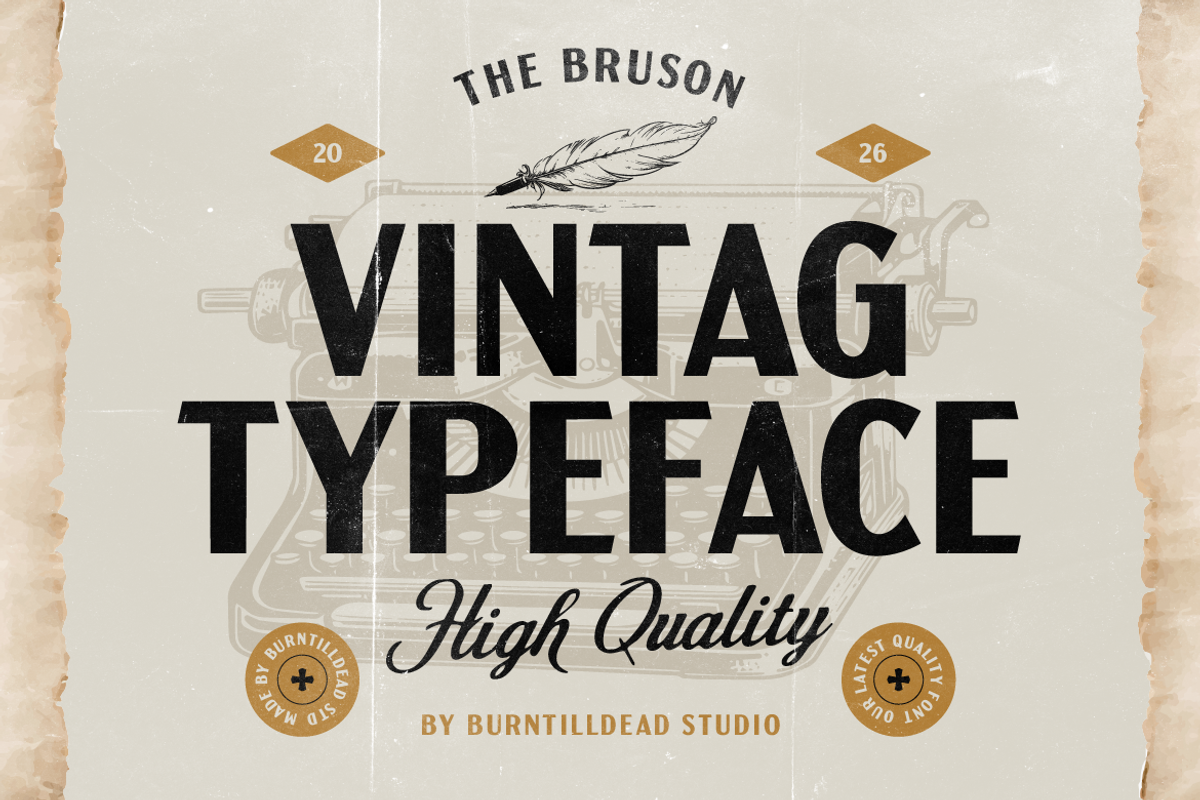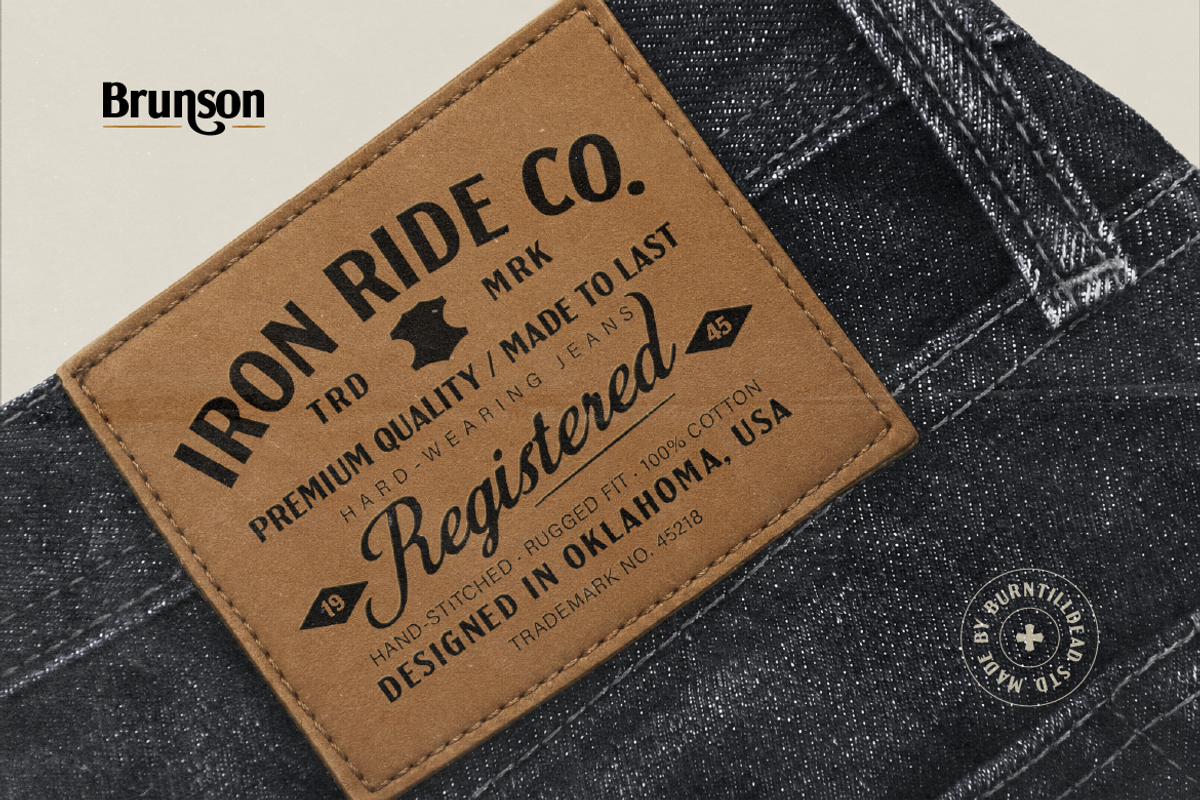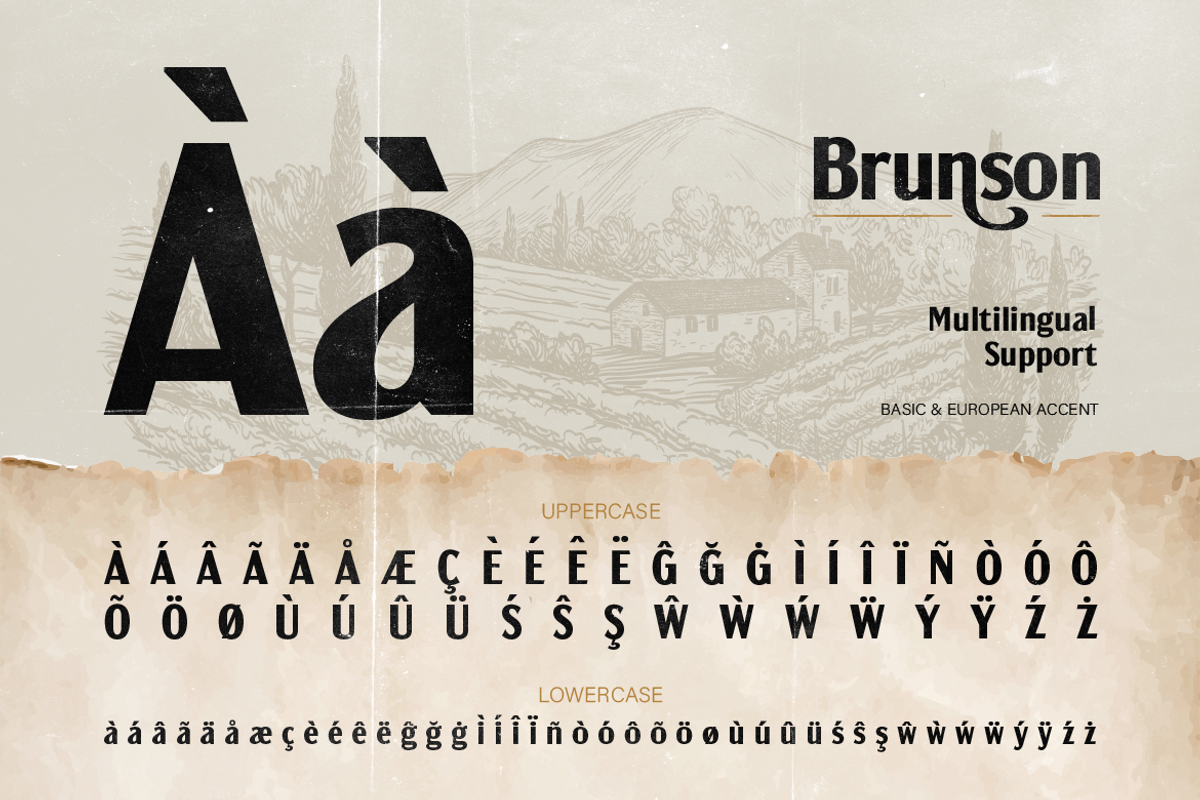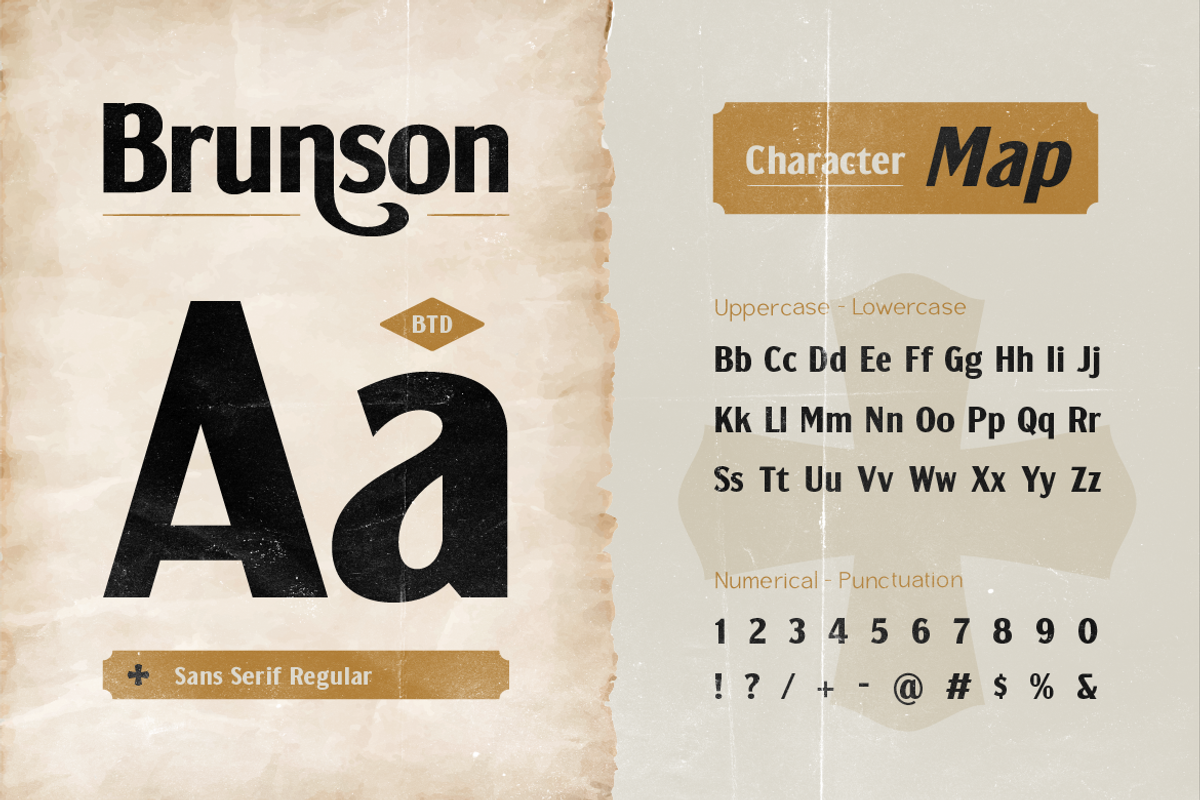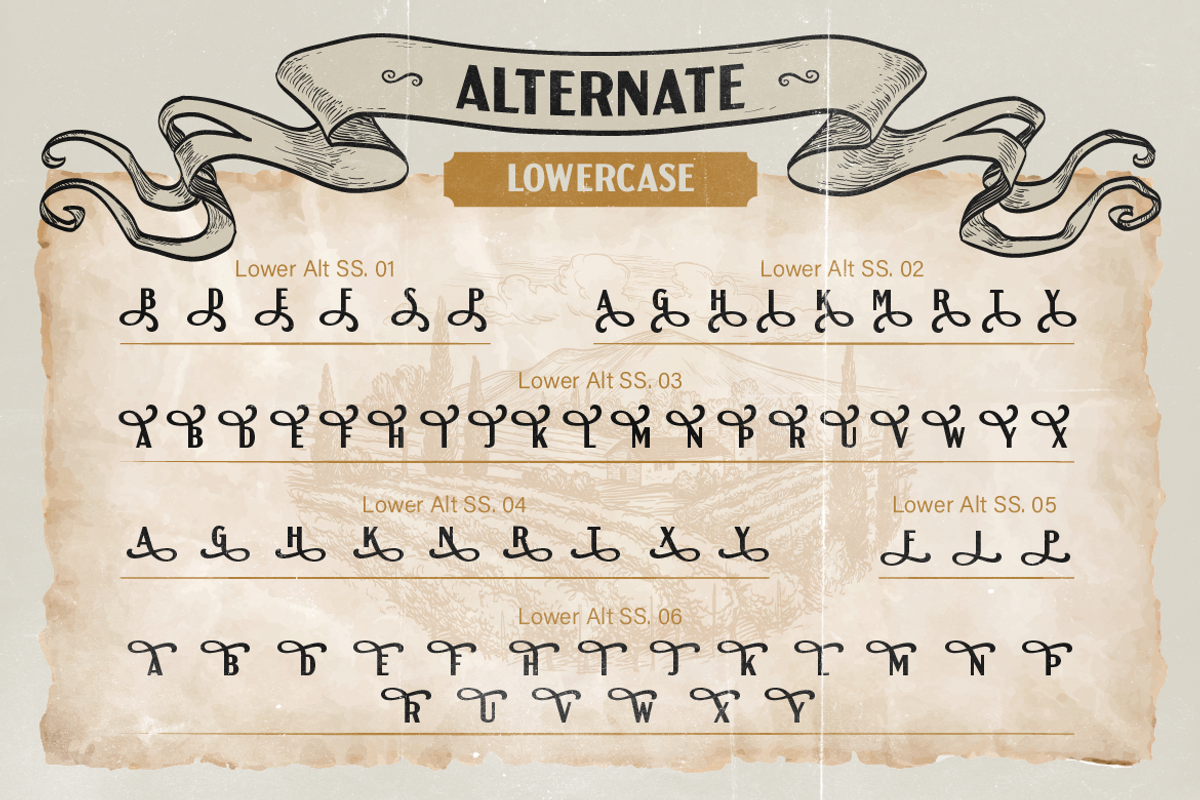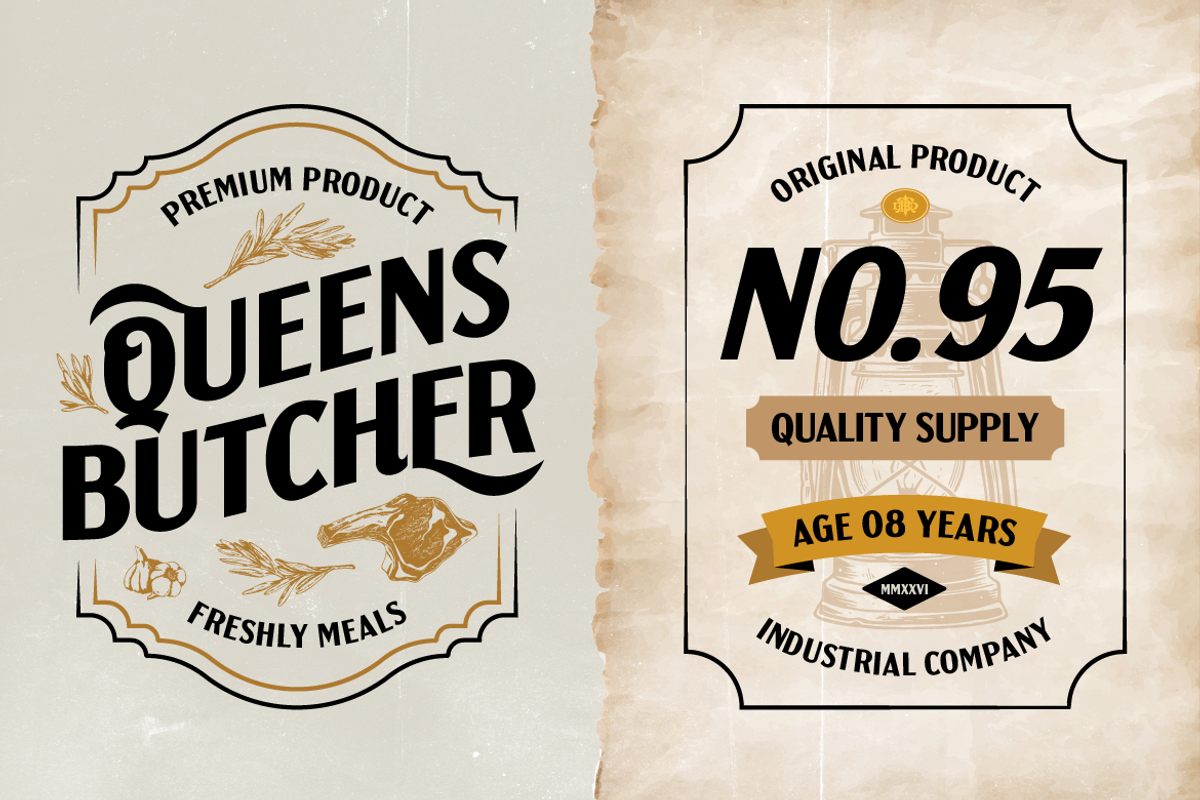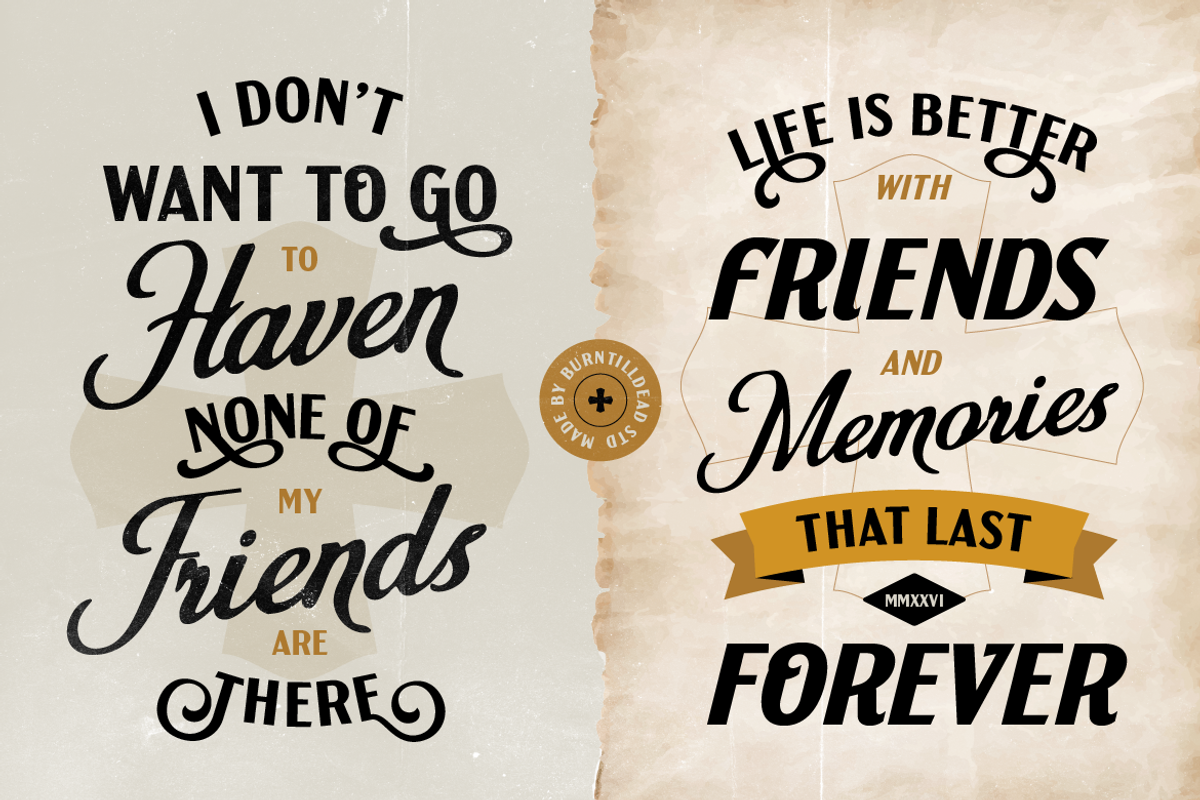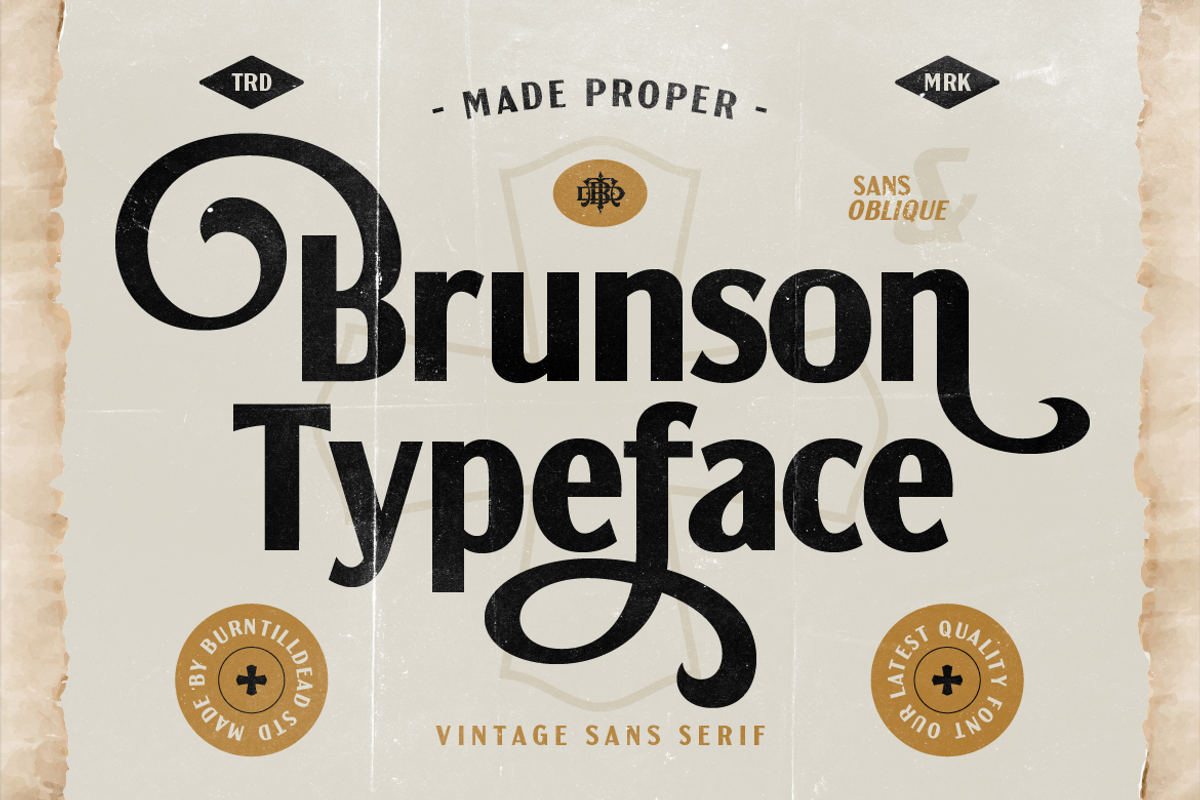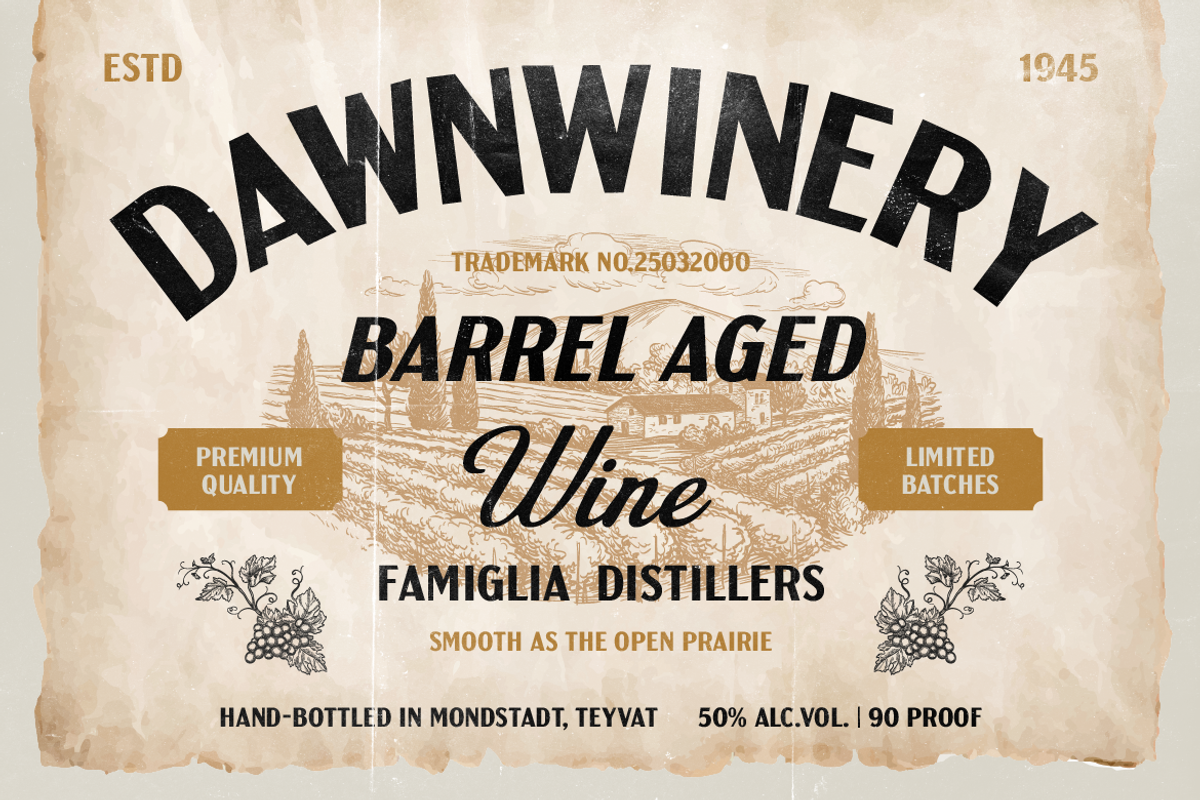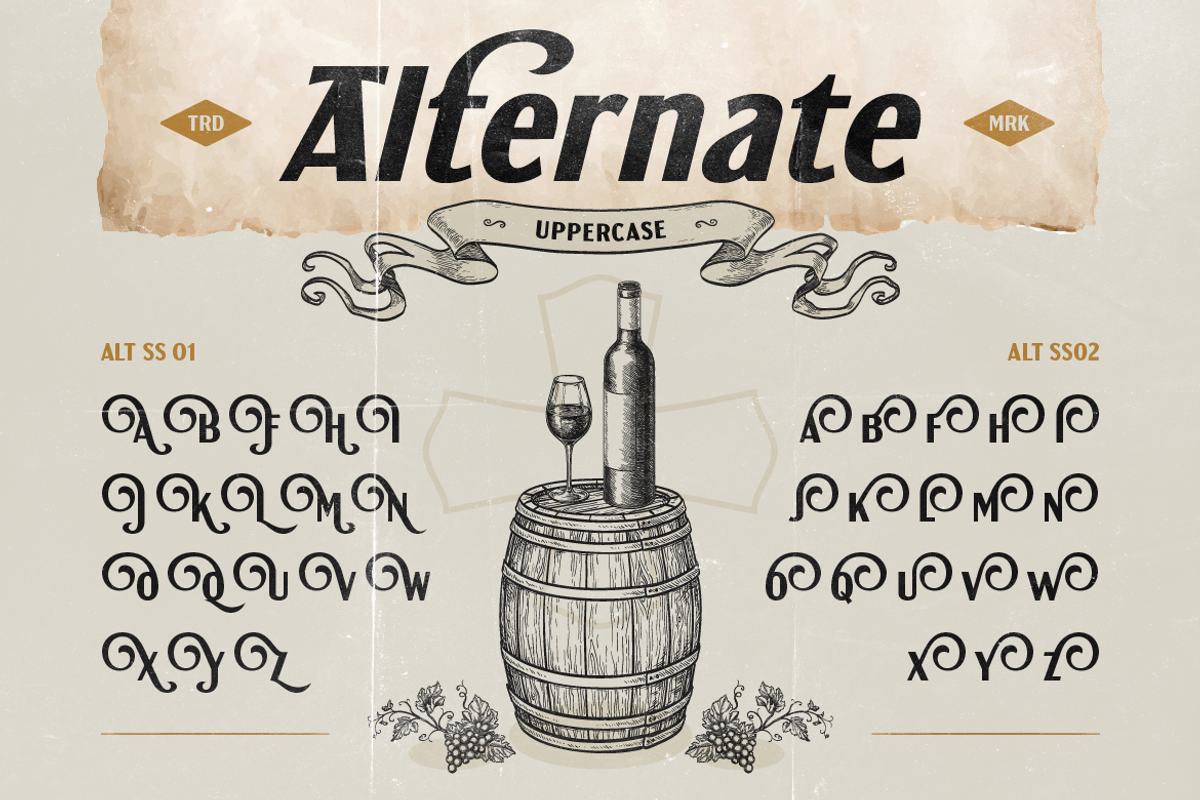
Brunson - Vintage Sans Serif
Brunson is a vintage sans serif typeface built for brands that want to feel established, honest, and full of personality. With its sturdy uppercase letterforms and playful lowercase swashes, Brunson strikes the perfect balance between rugged and refined, making it a versatile choice for retro inspired designs without looking dated.
This font comes complete with a matching Oblique style, giving you flexibility for headlines, subheadings, and accent text within the same design system. Every character has been crafted with clean, bold strokes that stay legible at both large display sizes and smaller supporting text.
Logo and branding projects with a vintage or heritage feel
Product packaging (wine labels, whiskey bottles, craft goods)
T-shirt and apparel designs
Posters, flyers, and quote artwork
Signage and storefront branding
Badge logos and emblem-style designs
A – Z set (Uppercase & Lowercase)
Number
Brunson characters Map